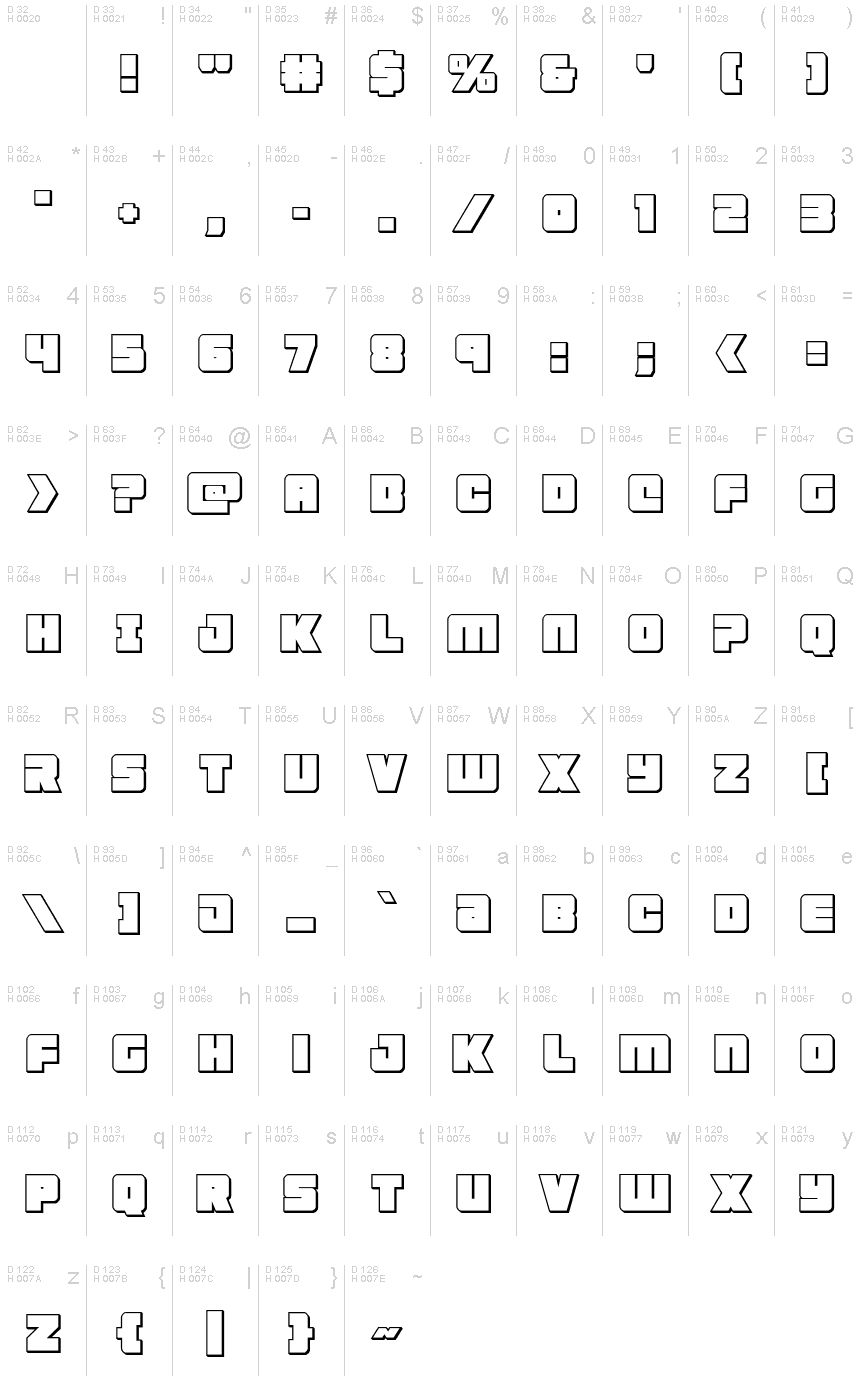
4ce 3D
Experience the futuristic thrill of 4ce 3D, the ultra-bold and expanded techno 3d display font designed by Iconian Fonts. Featuring sharp angles and geometric lines, this font typeface is perfect for projects that require a high-tech look such as gaming logos, sci-fi movie titles or futuristic magazine covers. The 4ce family offers versatility in its multiple weights and styles, but the 3D variation takes it to another dimension. Elevate your designs by incorporating the dynamic energy of 4ce 3D into your next project - from digital ads to product packaging - this font is sure to make a bold statement.